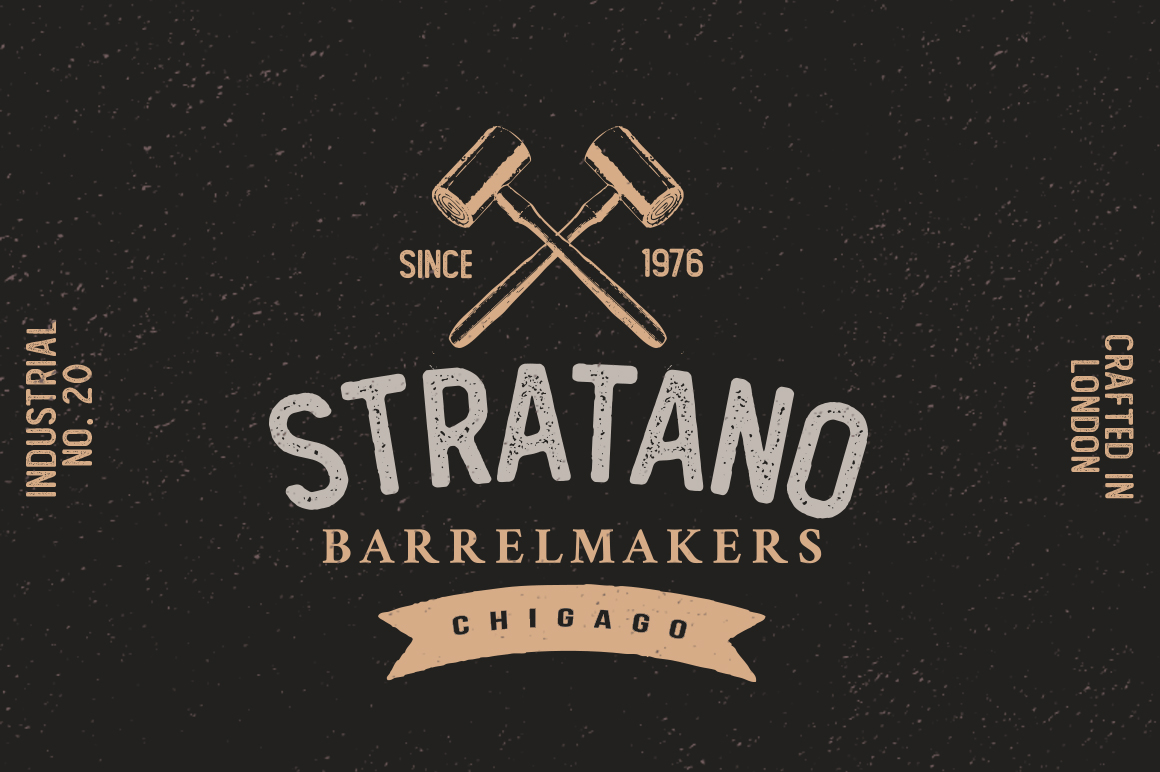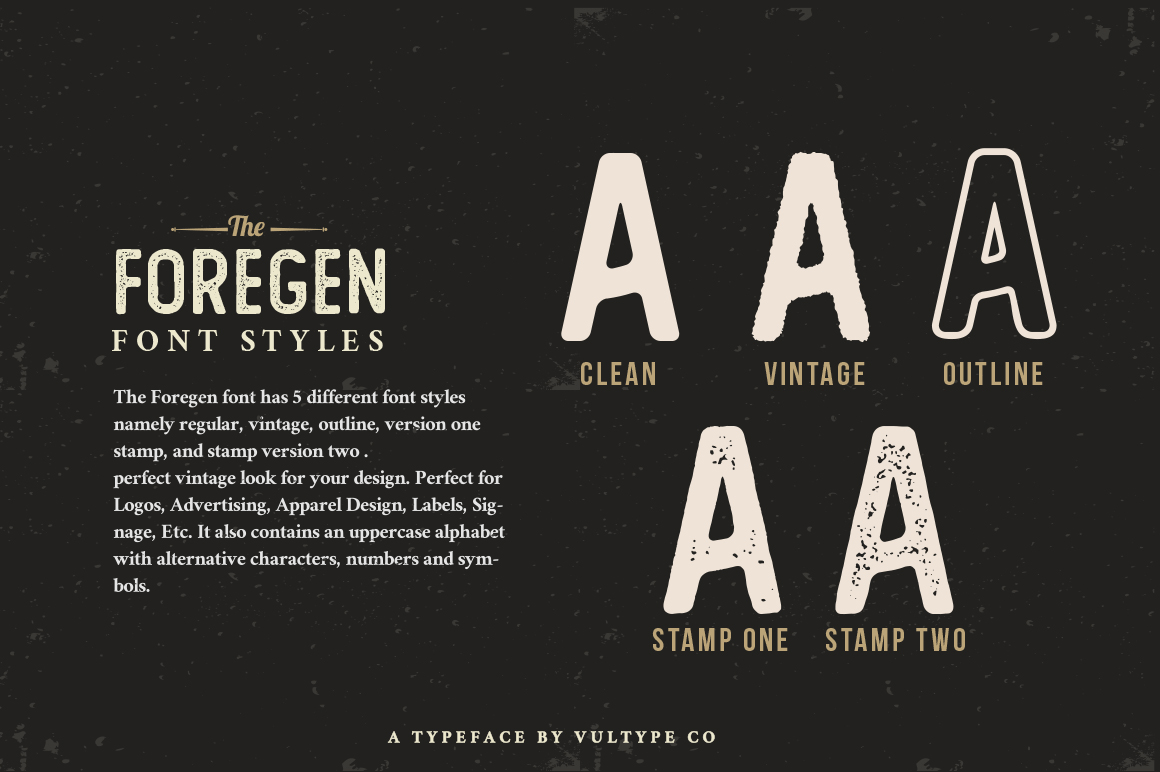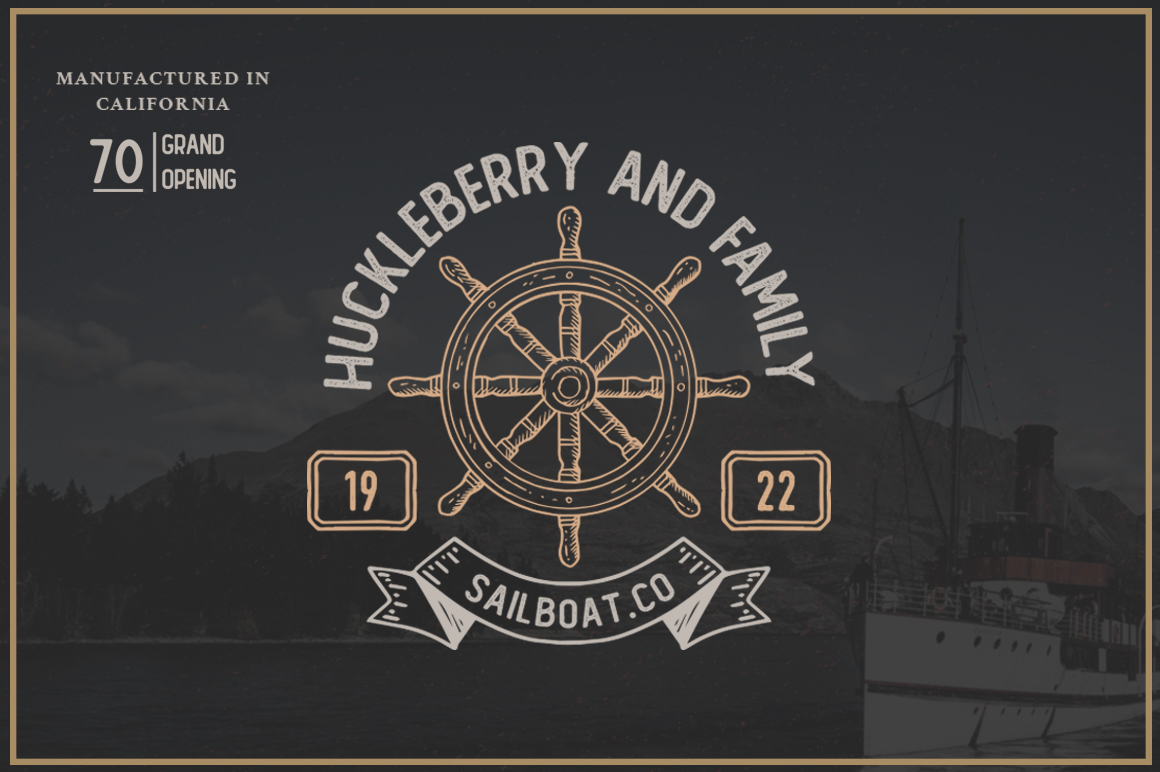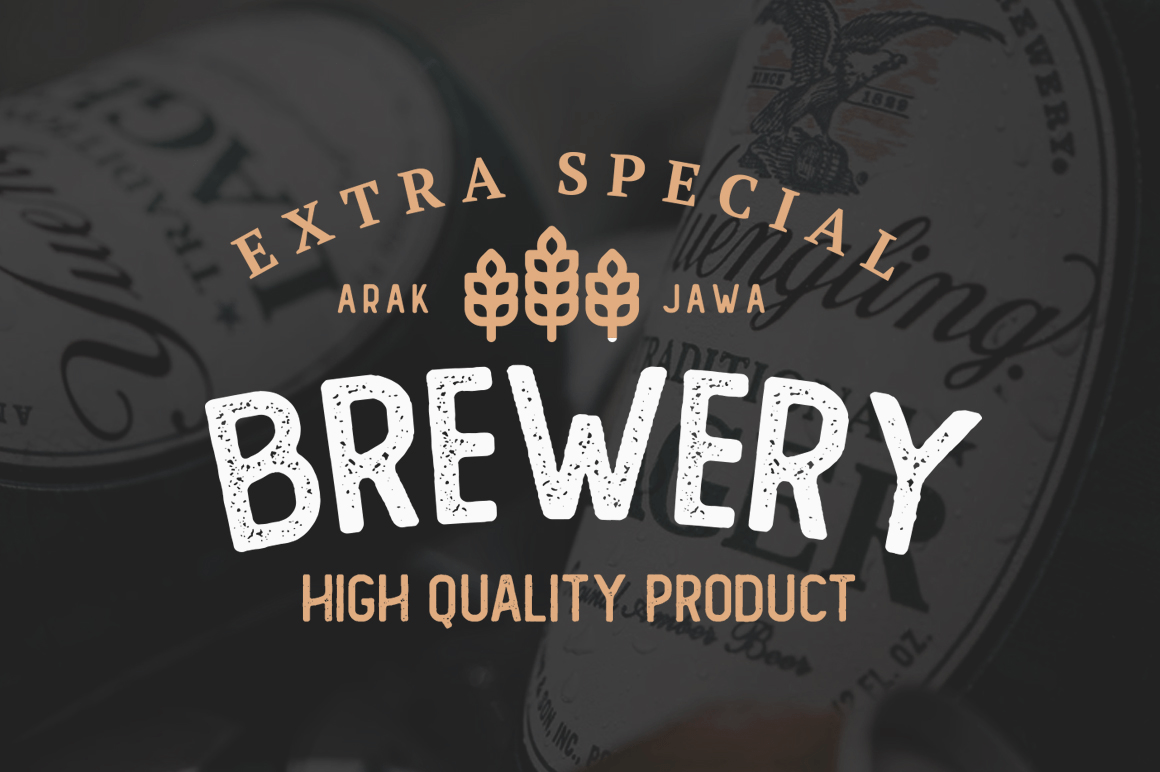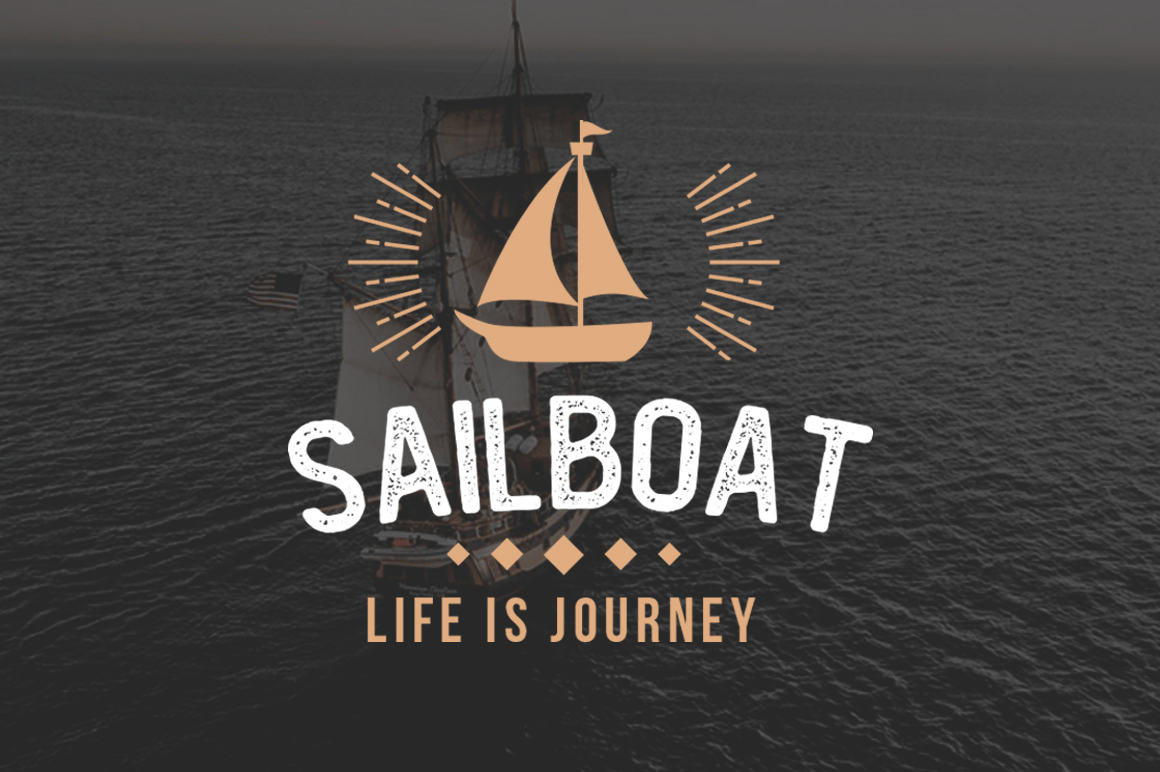
The Foregen
About The Foregen
The Foregen is a vintage sans serif font with 5 font styles, including Regular, Outline, Vintage, Rough One, And Rough Two. Made carefully to create the perfect texture and suitable for each of your projects, it\’s also great for logotype, branding design,…